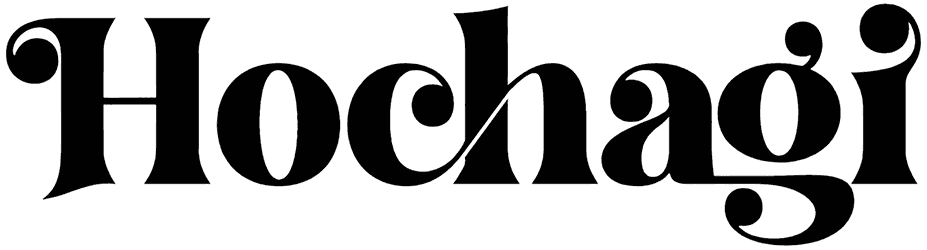
Hochagi Font
The Hochagi font has a unique design with a vintage feeling that is a good choice for various cases such as magazine covers, T-shirts, and flyers. This serif font is designed in two versions, regular and italic, and the letters have a classic form.
The luxury serif font sends a friendly vibe and easily entertains the audience. The bold letters of this font remain in your mind and invite you to follow the content.